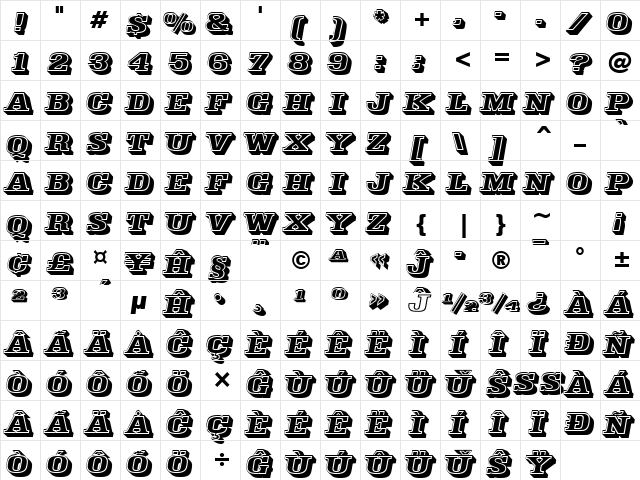
Decorated035 BT Eo Regular
Design Context for Decorated035 BT Eo Typeface
Decorated035 BT Eo is a composed and adaptable typeface that performs quietly and consistently across a wide range of design contexts.